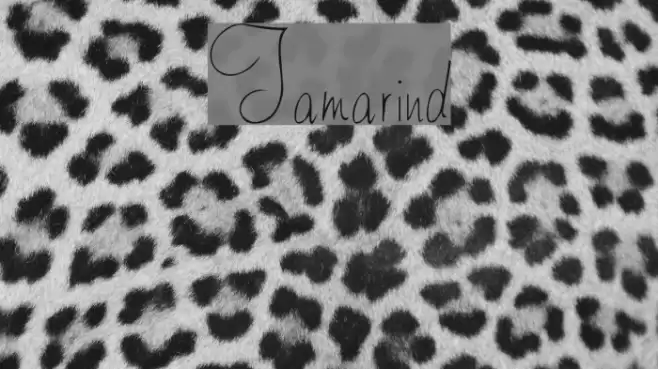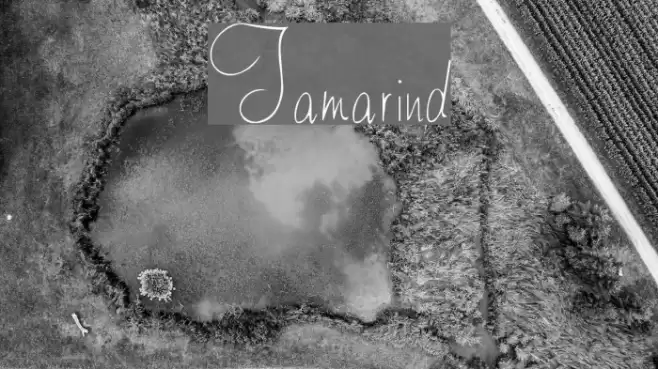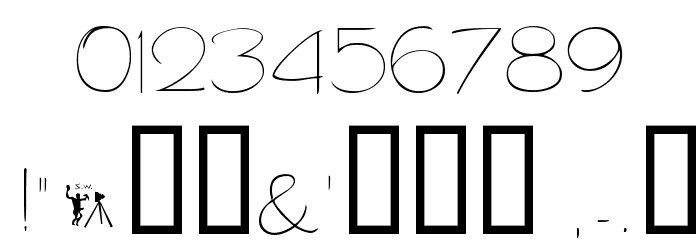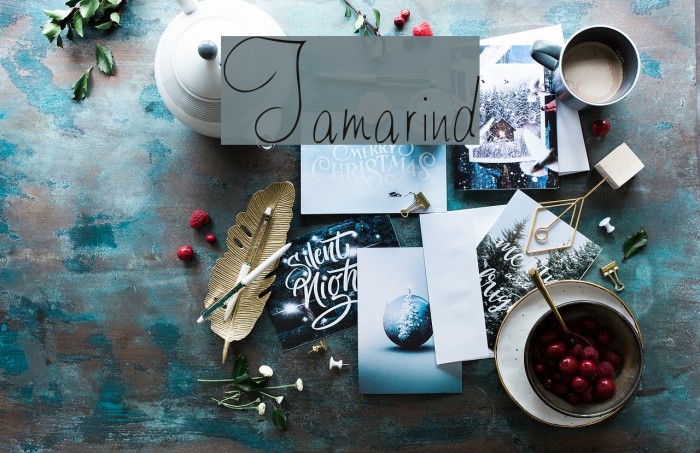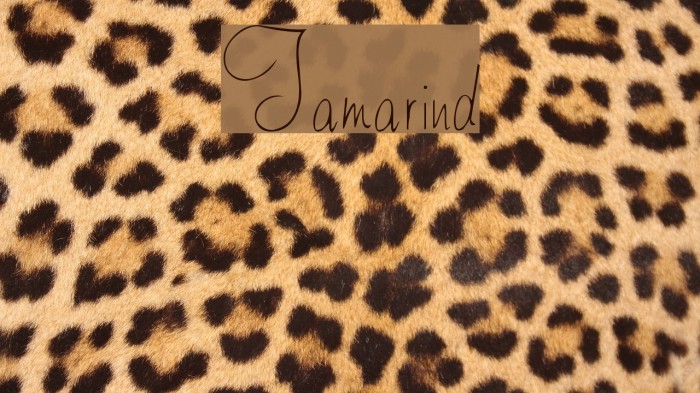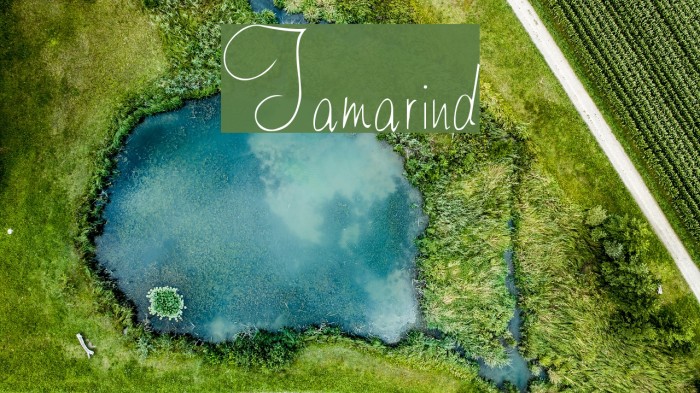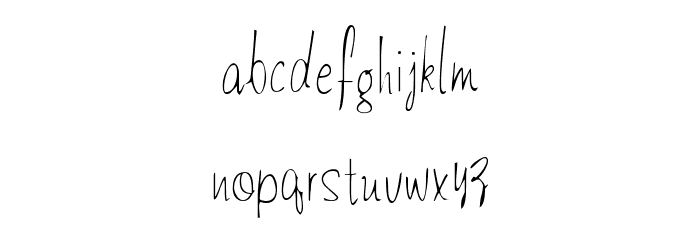
Tamarind Font
Tamarind Description
This font features an elegant and flowing script style with a modern twist. The uppercase letters are characterized by smooth, sweeping curves and a sense of fluidity, while the lowercase letters maintain a consistent, graceful appearance. The numerals are clean and straightforward, complementing the overall aesthetic. Special characters are uniquely styled, adding a touch of creativity. The font's design is both sophisticated and approachable, making it suitable for a variety of applications.
A modern, elegant script font with flowing curves and a sophisticated style from Uncategorized fonts.
- Proposed Projects: Ideal for wedding invitations, branding, logo design, and elegant stationery.
- Use Case: Logos, Invitations, Branding